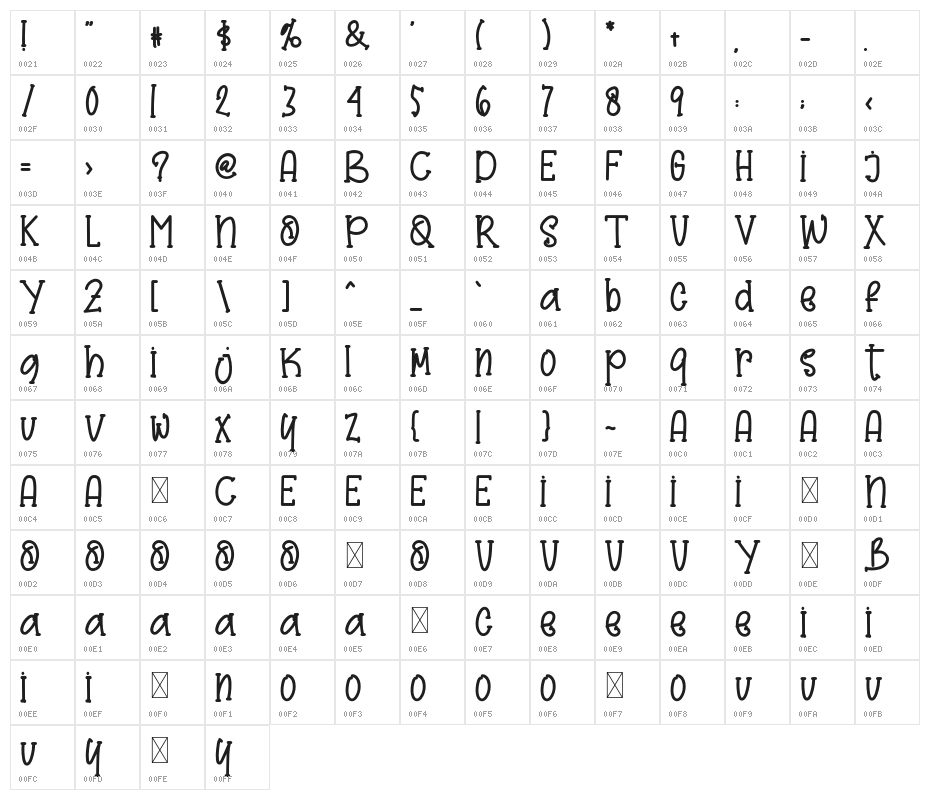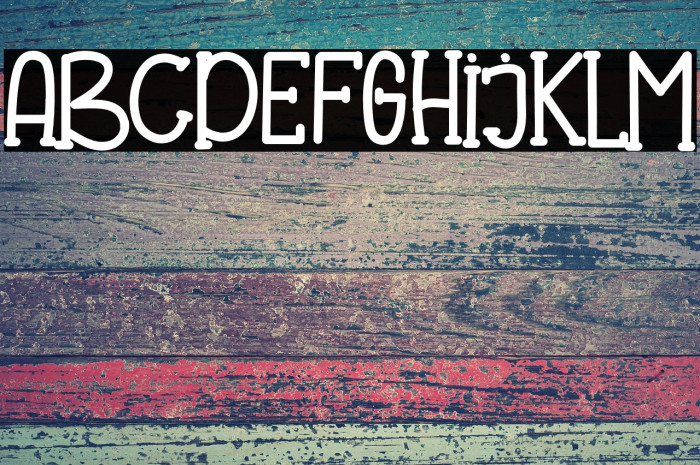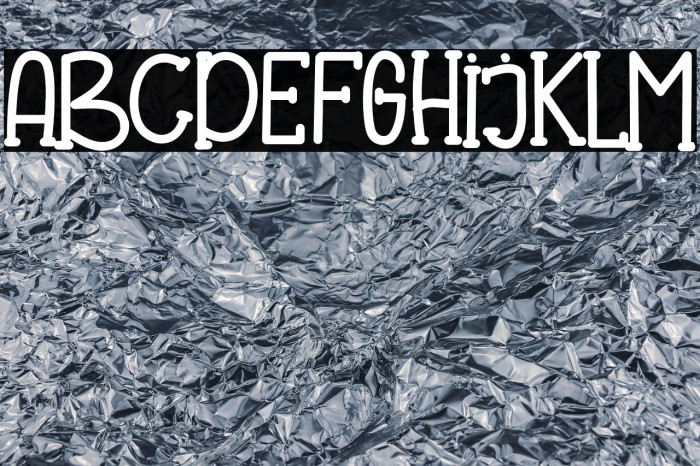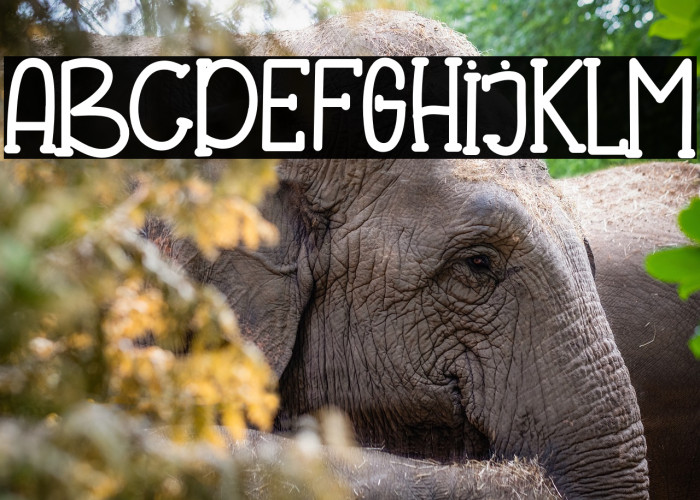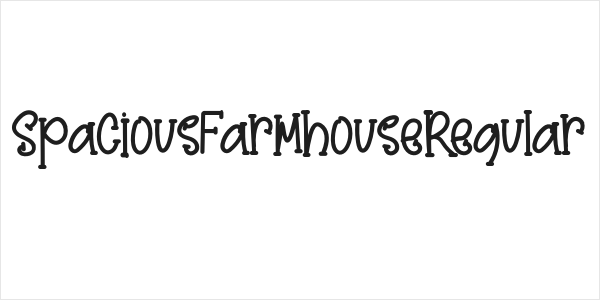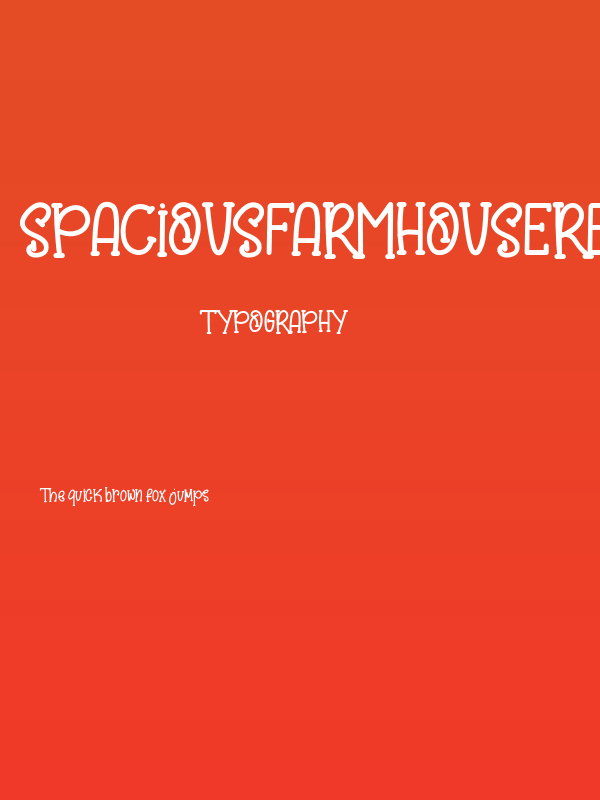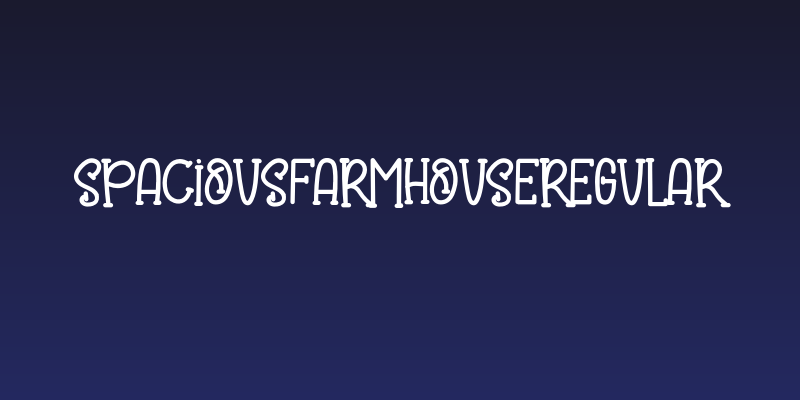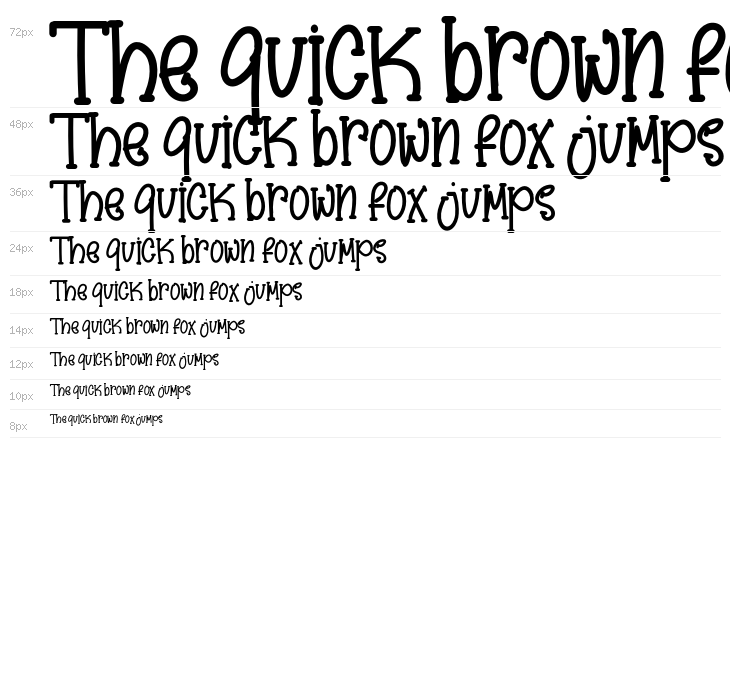
SpaciousFarmhouseRegular Font
SpaciousFarmhouseRegular Description
This font features a playful and whimsical style, characterized by its hand-drawn appearance and slightly irregular letterforms. The uppercase letters are tall and narrow, with a unique flair that adds personality to each character. The lowercase letters maintain a consistent style, with rounded edges and a casual, friendly feel. The numbers are bold and easy to read, matching the overall aesthetic of the font. Special characters are creatively designed, adding to the font's charm. The font's overall look is reminiscent of a farmhouse or rustic theme, making it ideal for projects that require a touch of warmth and creativity.
| Use Case | Logos, Headlines, Creative projects |
| Proposed Projects | Ideal for farmhouse-themed designs, children's books, greeting cards, and creative branding projects. |